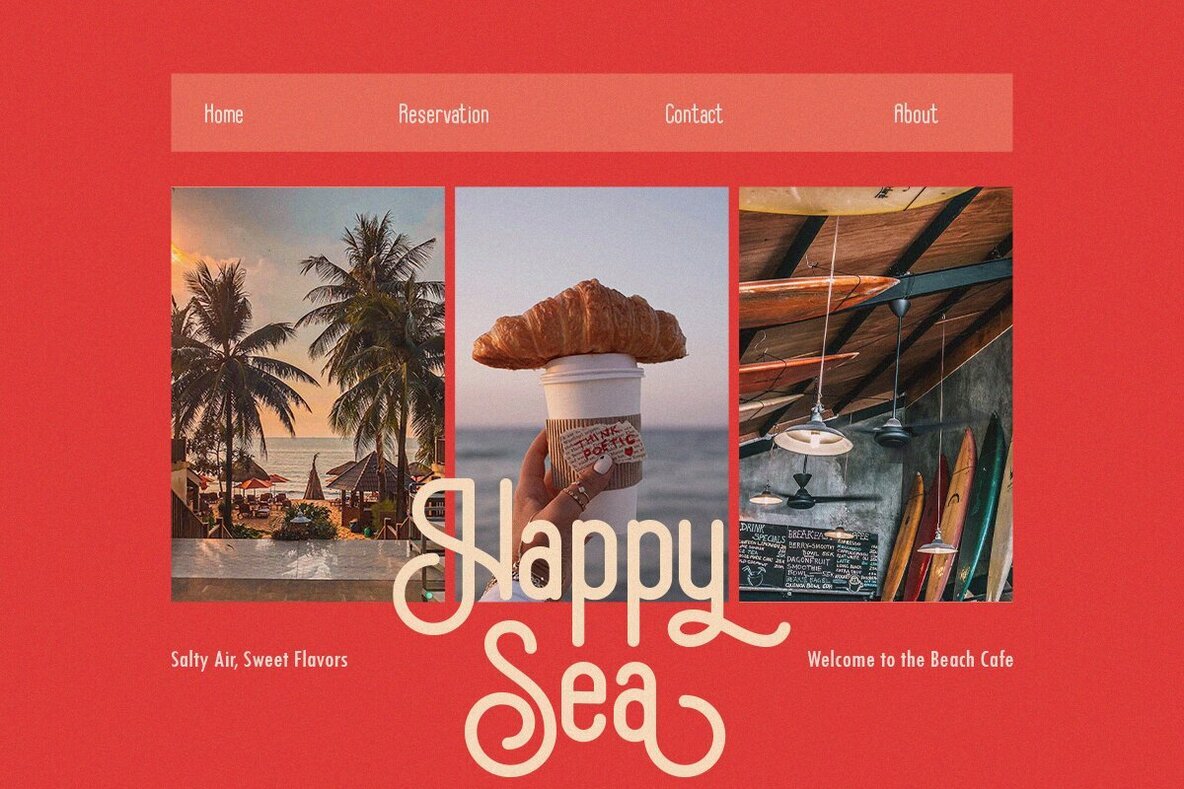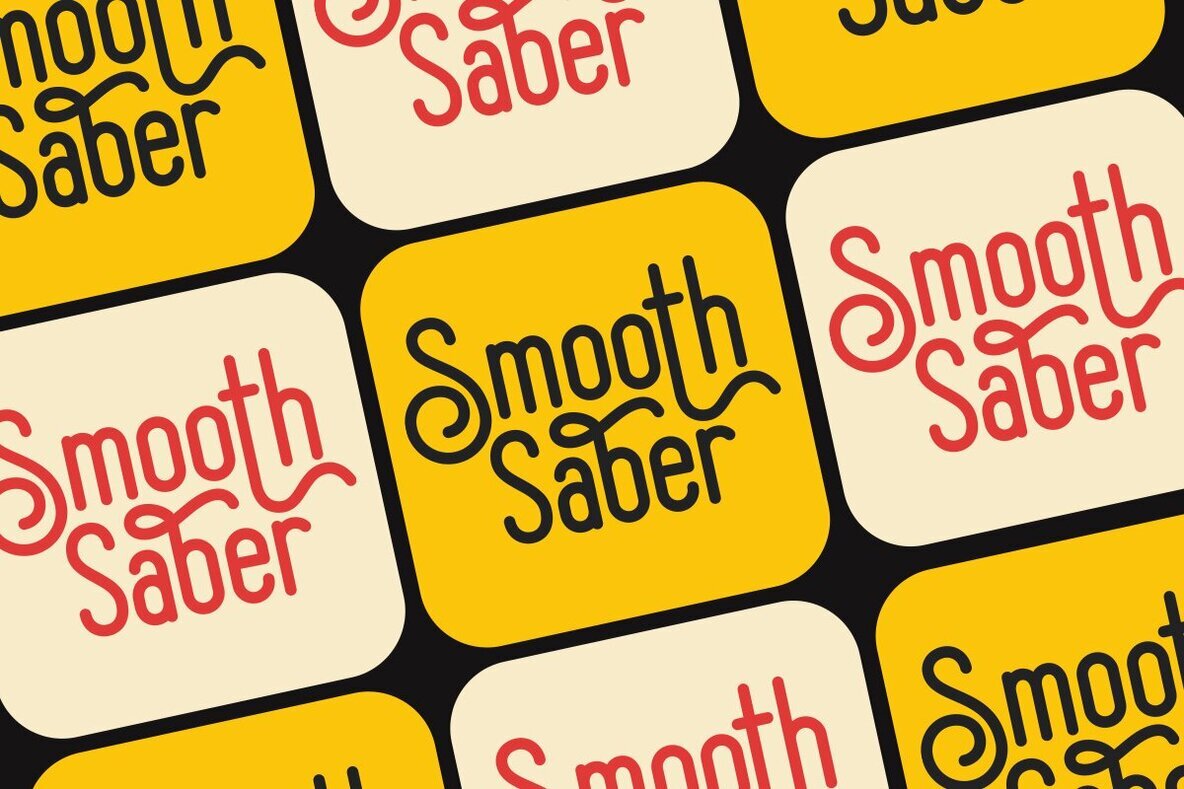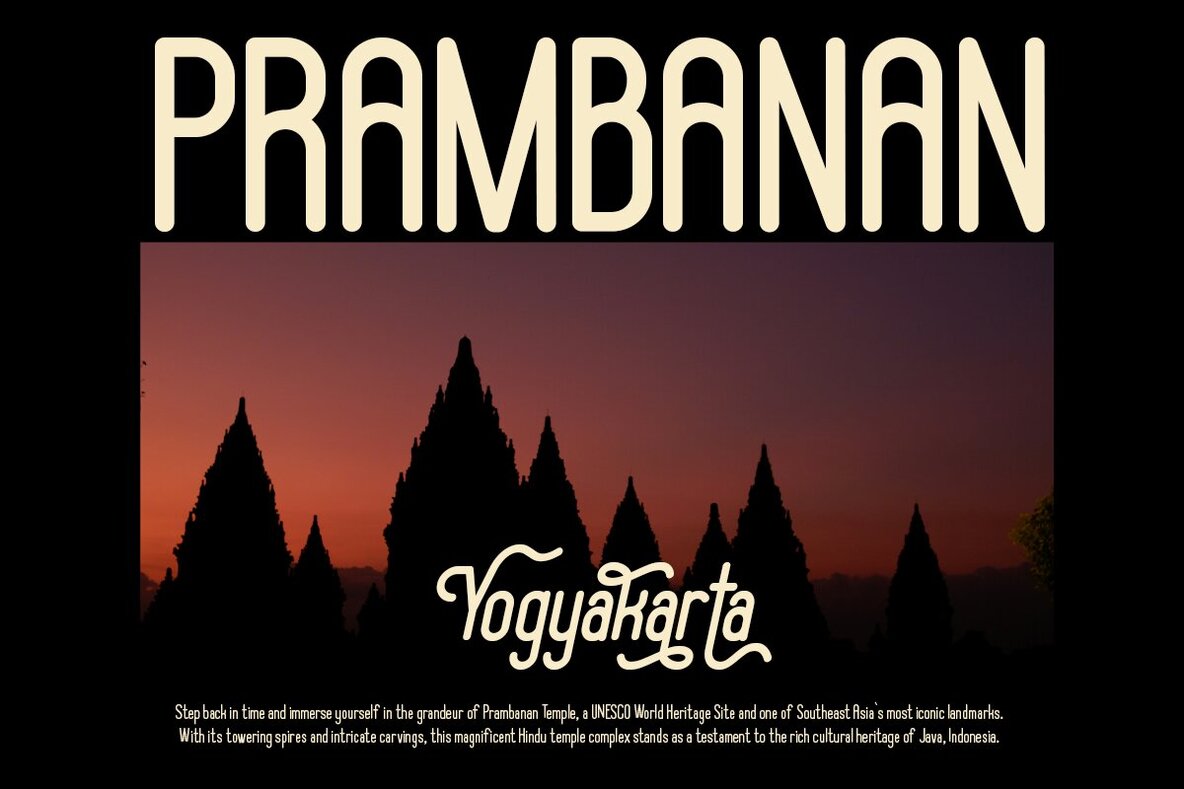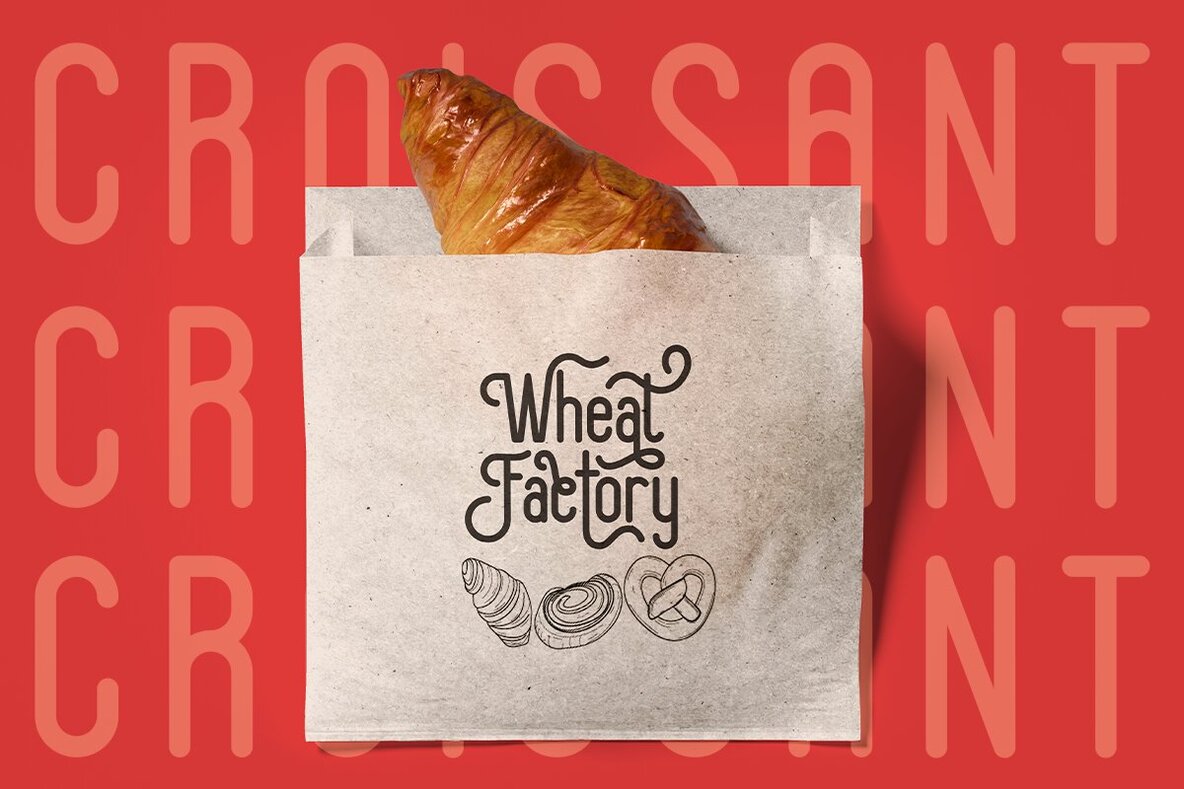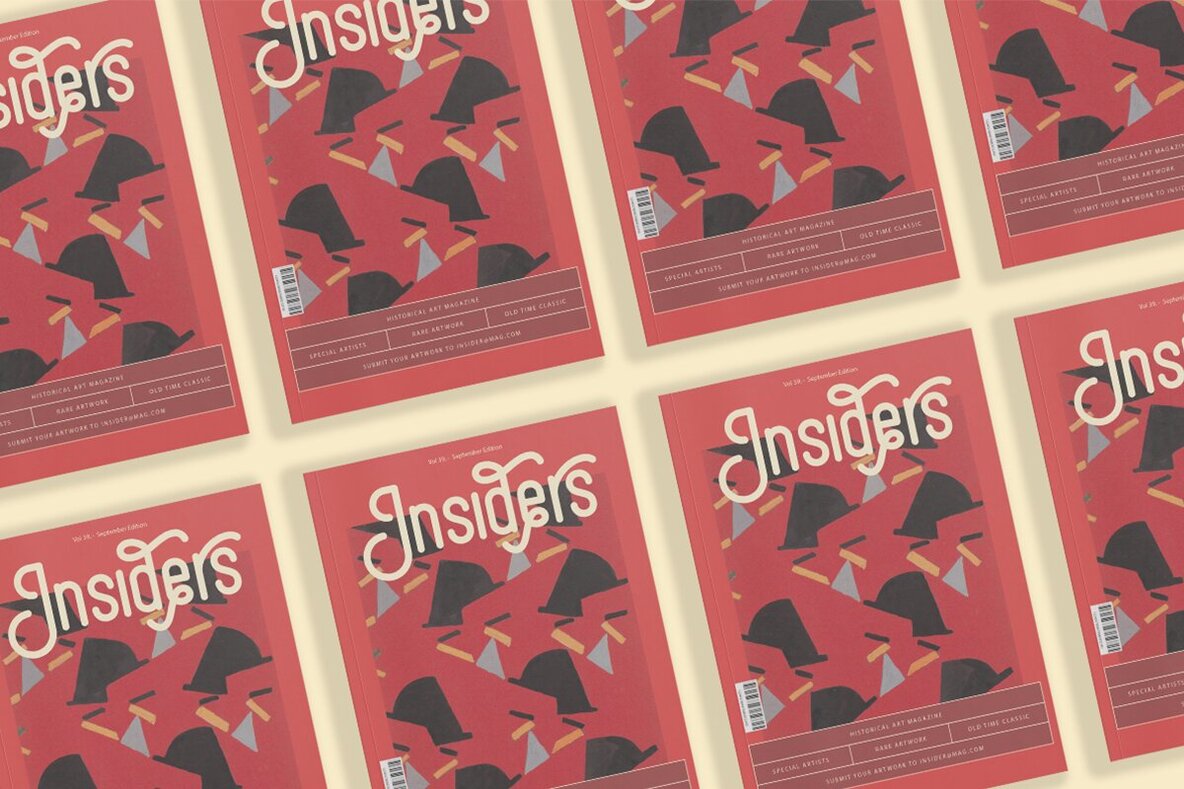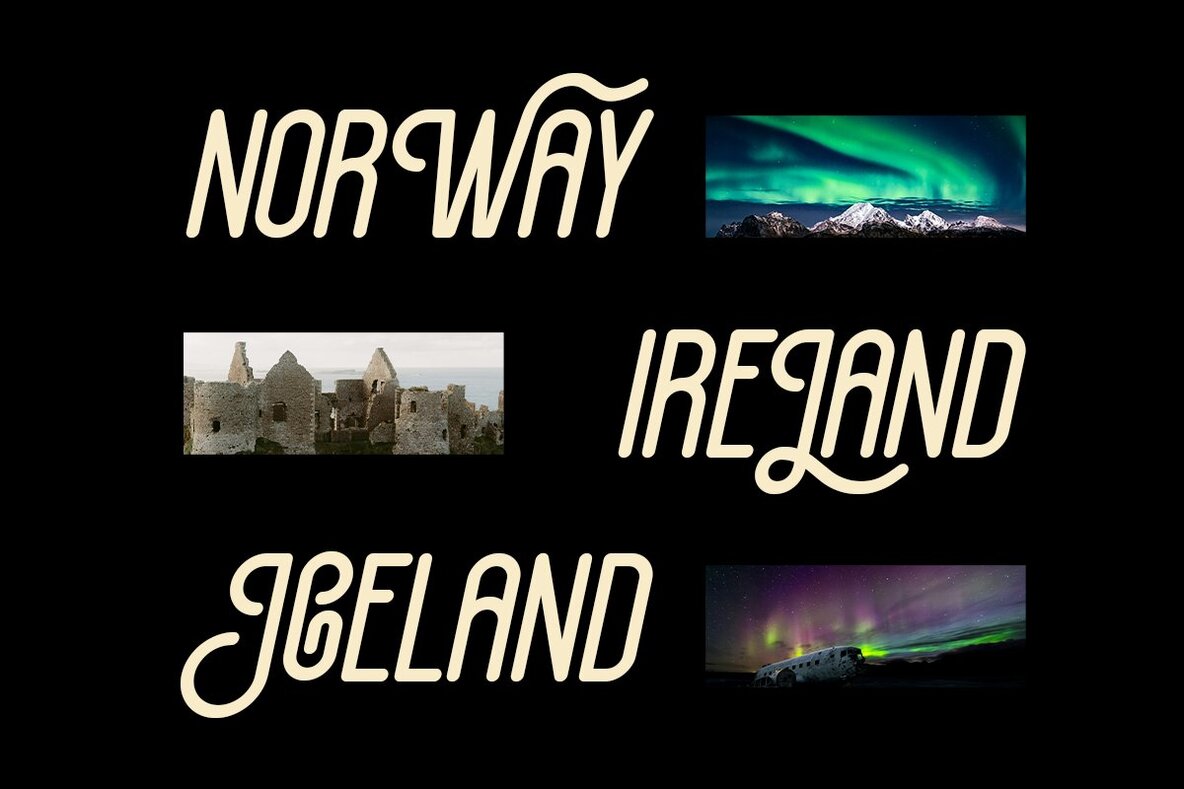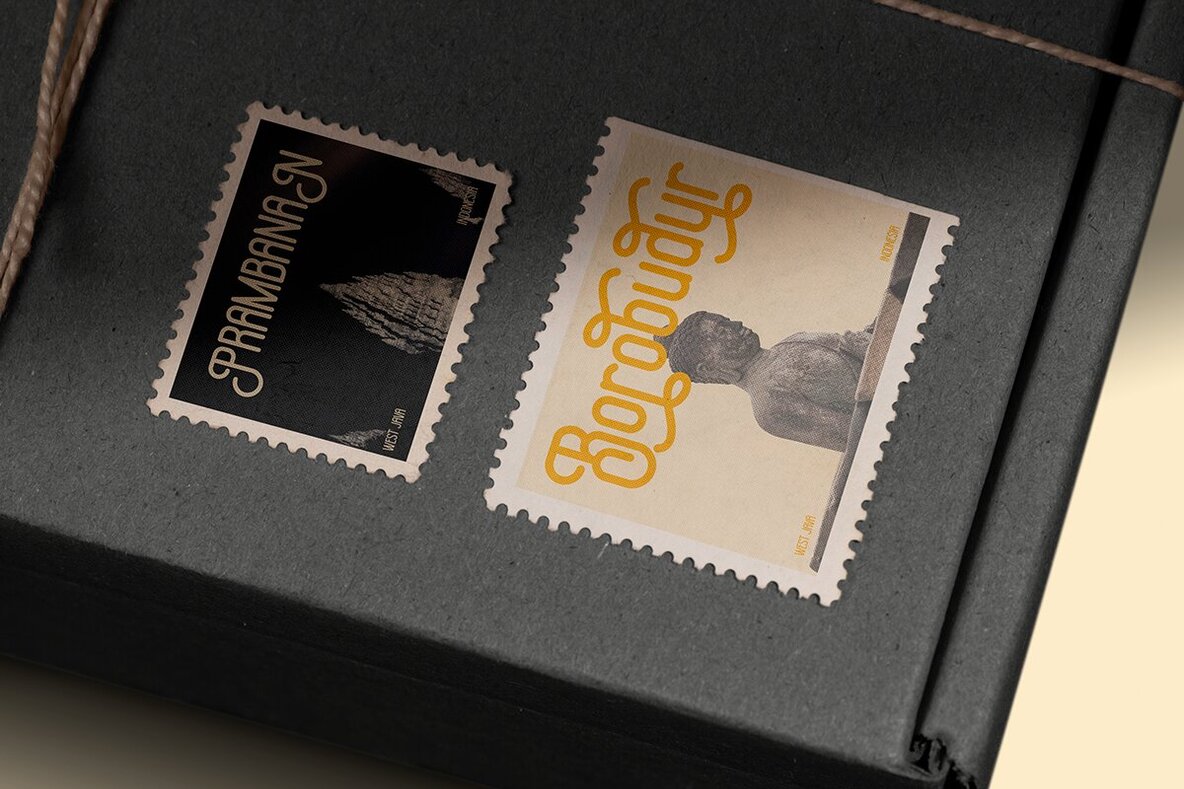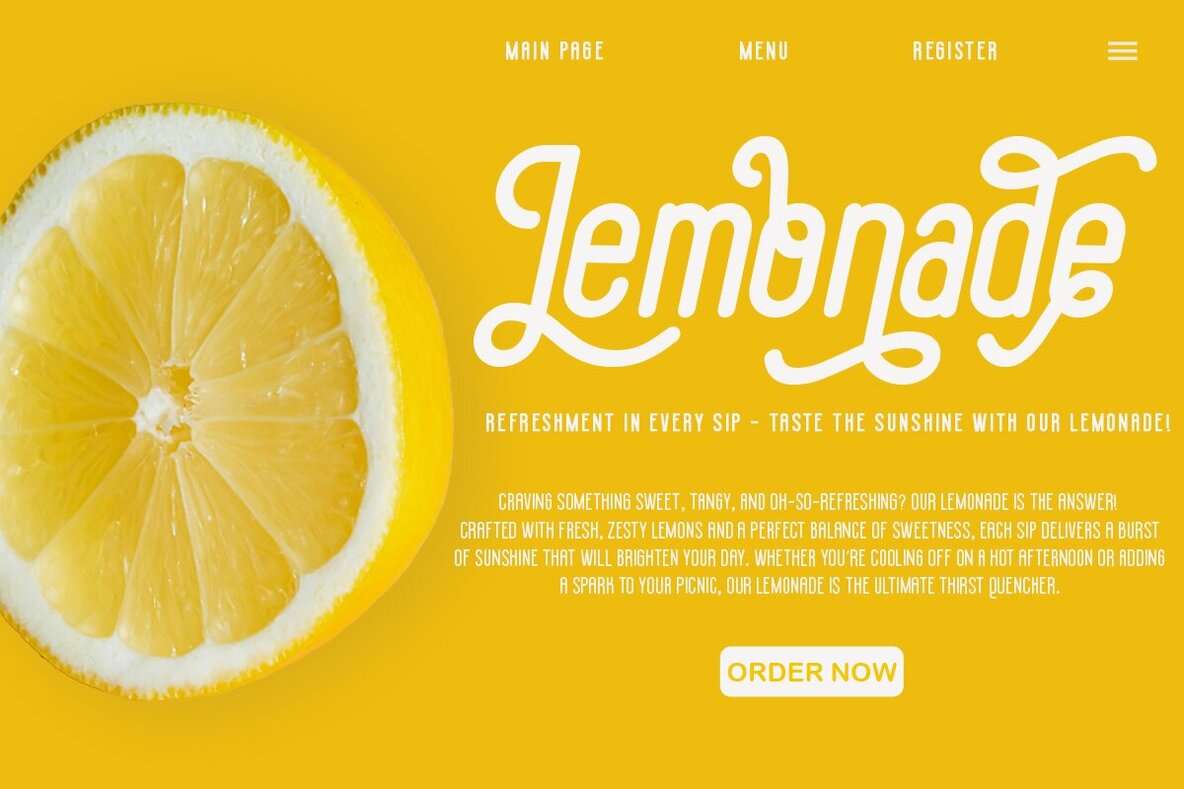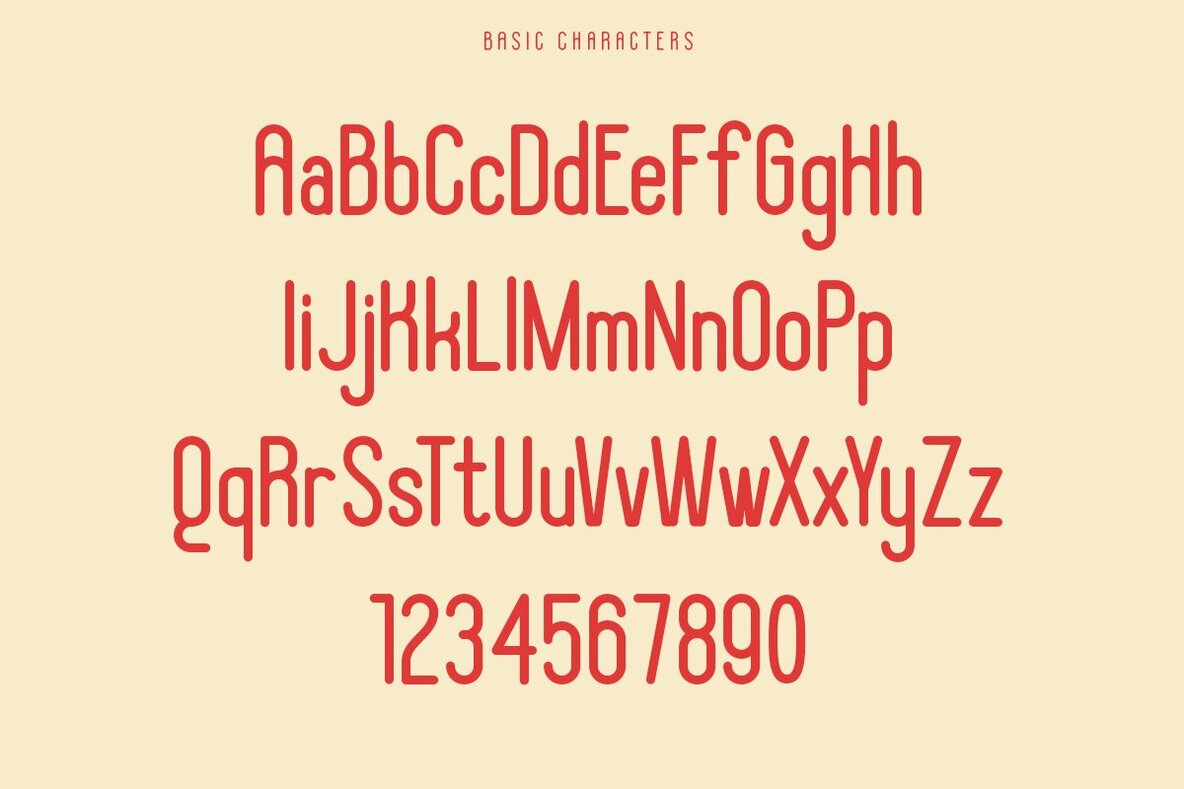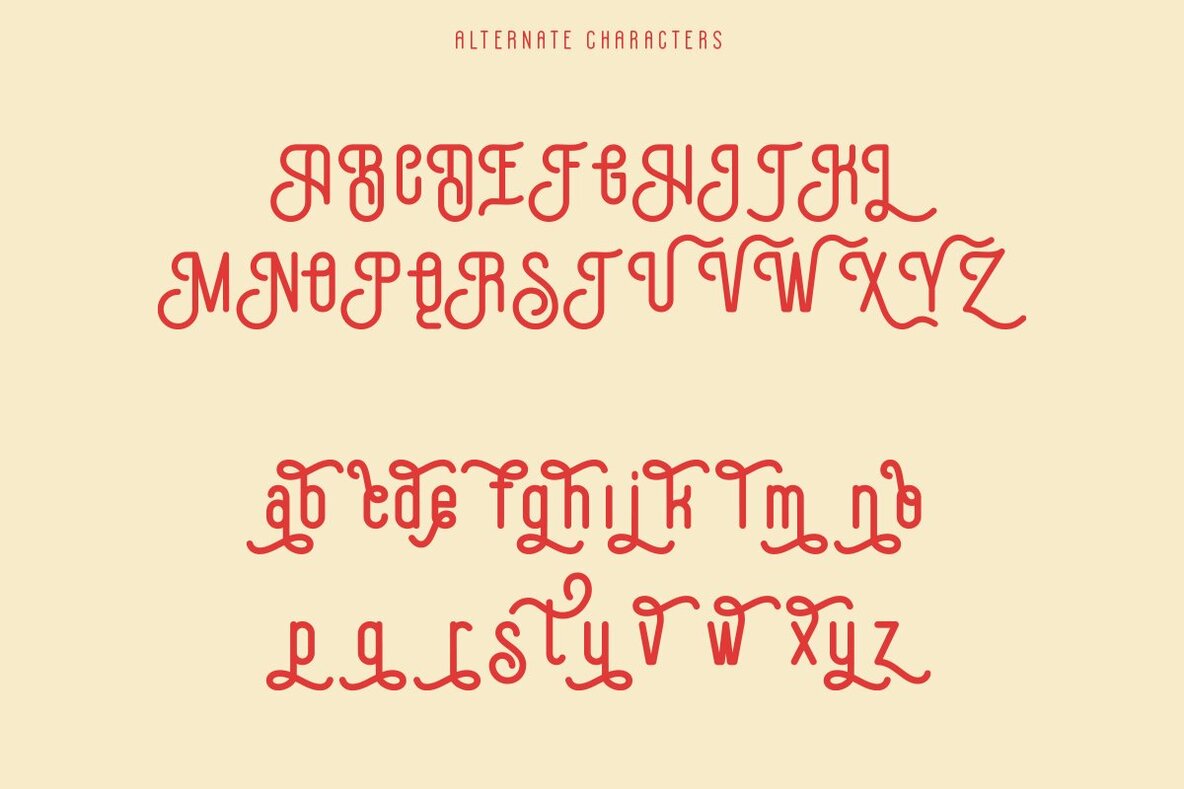
Heritage Angles Font
Heritage Angles is a rounded sans serif font distinguished by its engaging alternate arches, offering an ideal design balance between modern flair and approachable style. The font’s rounded shape delivers a friendly yet professional impression, making it versatile for various creative projects. It's a perfect fit for chic and lifestyle designs, enhancing applications such as logos, advertisements, and photography watermarks. Additionally, it adds sophistication to stationery, branding projects, display magazines, invitations, corporate brands, product designs, labels, business endeavors, and other projects seeking an elegant touch.
Key features of Heritage Angles include alternate characters and multi-language support. This flexibility allows for greater creativity and adaptability, ensuring the font meets the diverse needs of designers. Comprehensive notes on how to use alternates are included, providing clear guidance for users to maximize the font's potential in their designs.